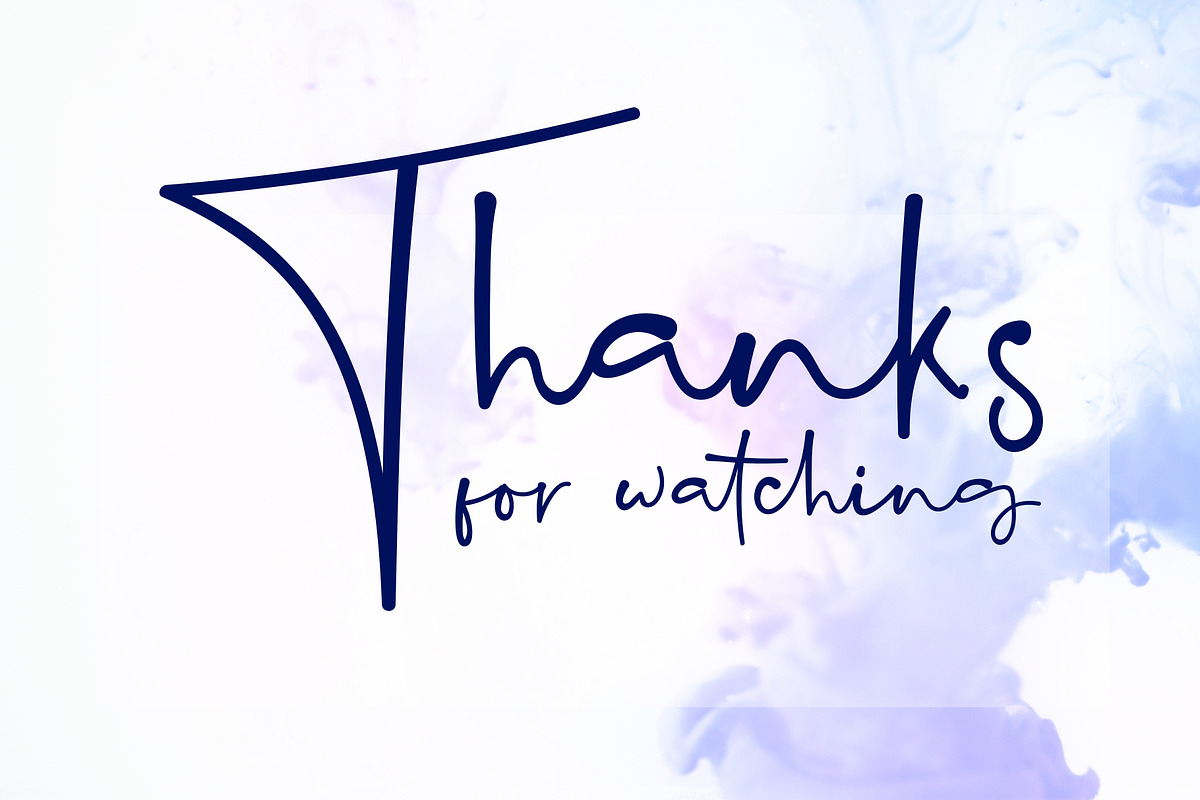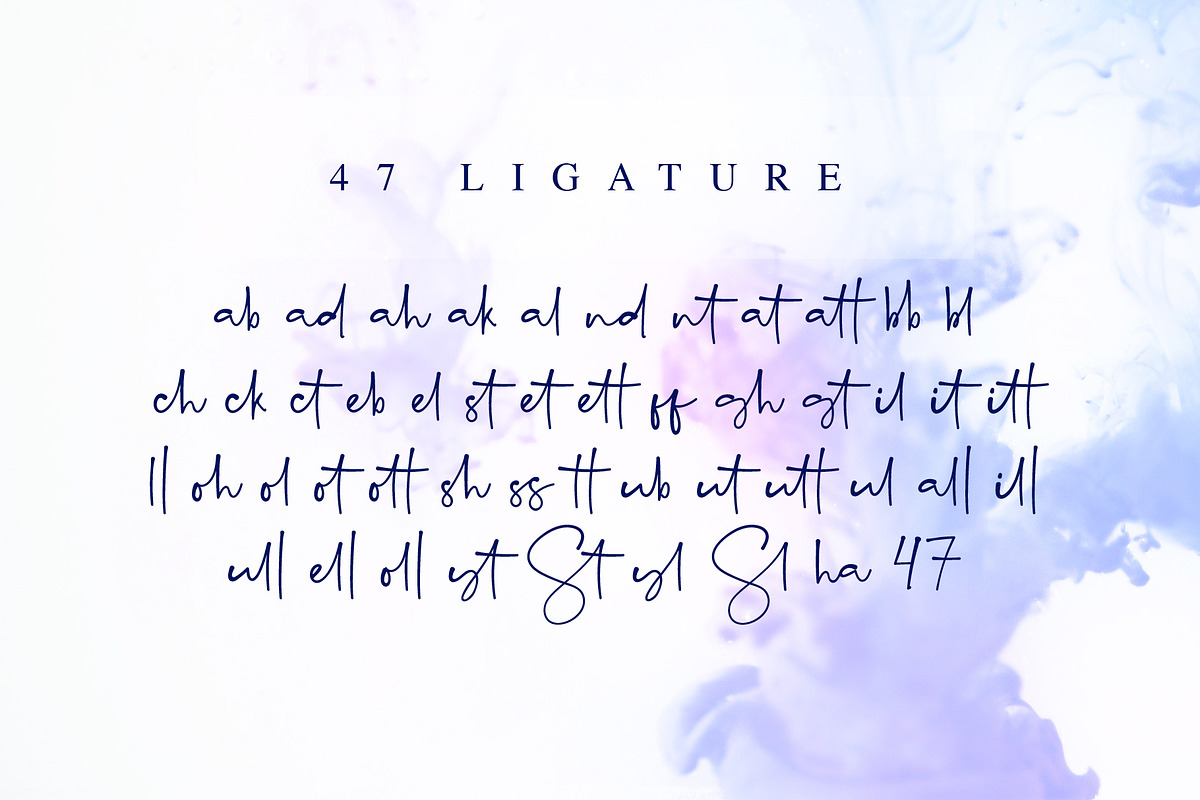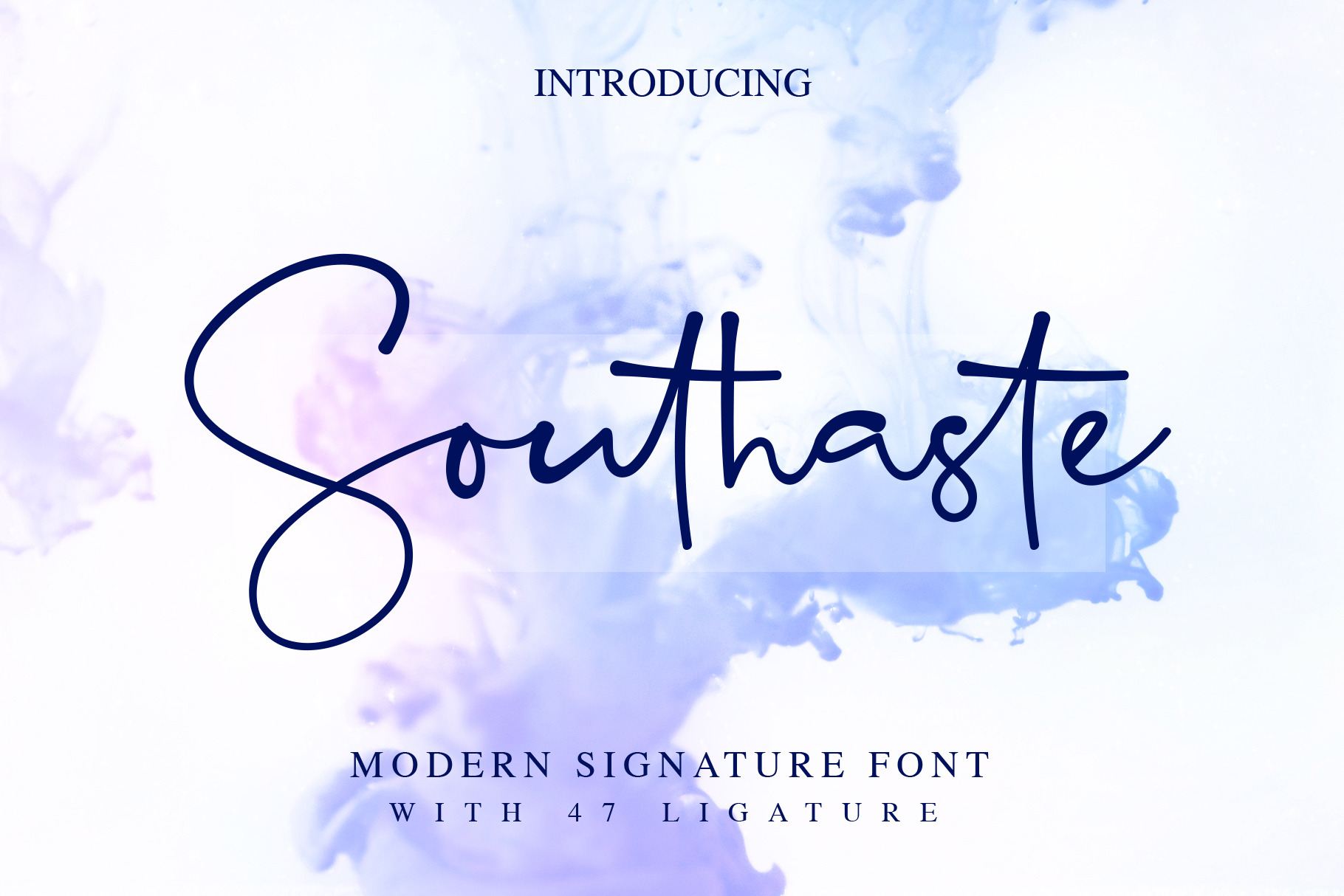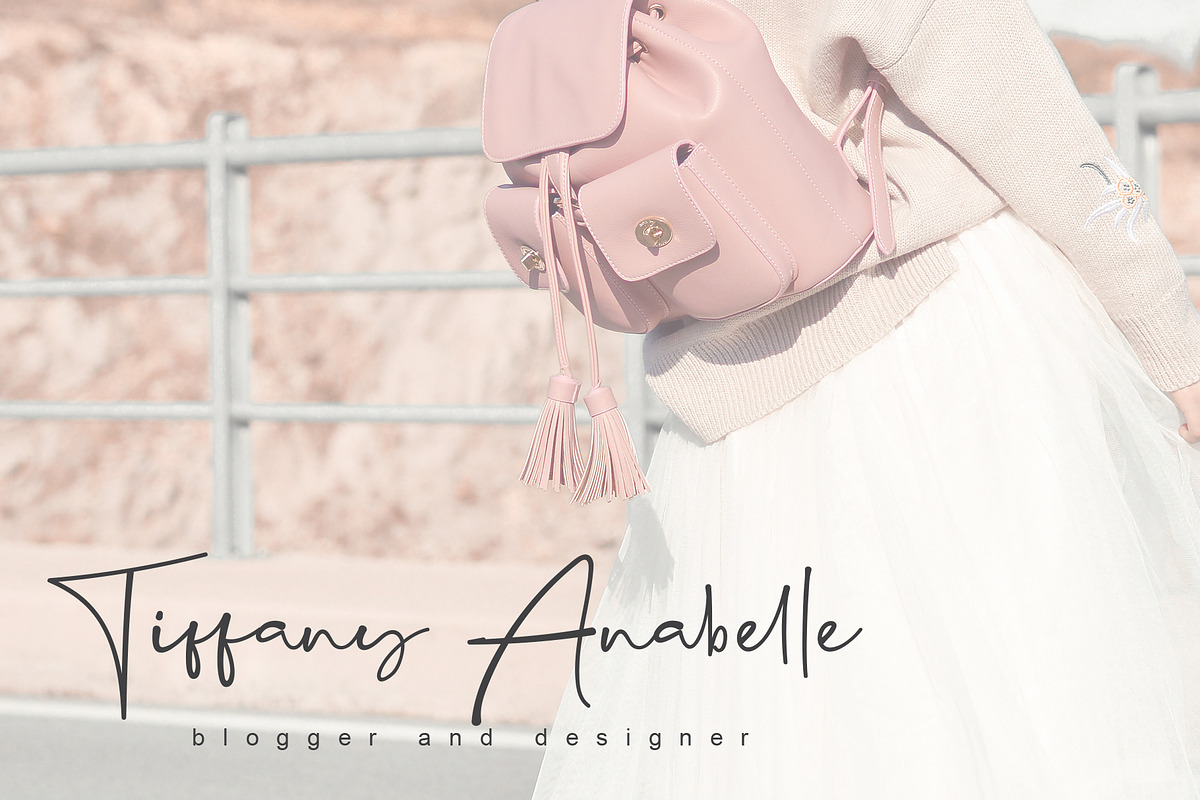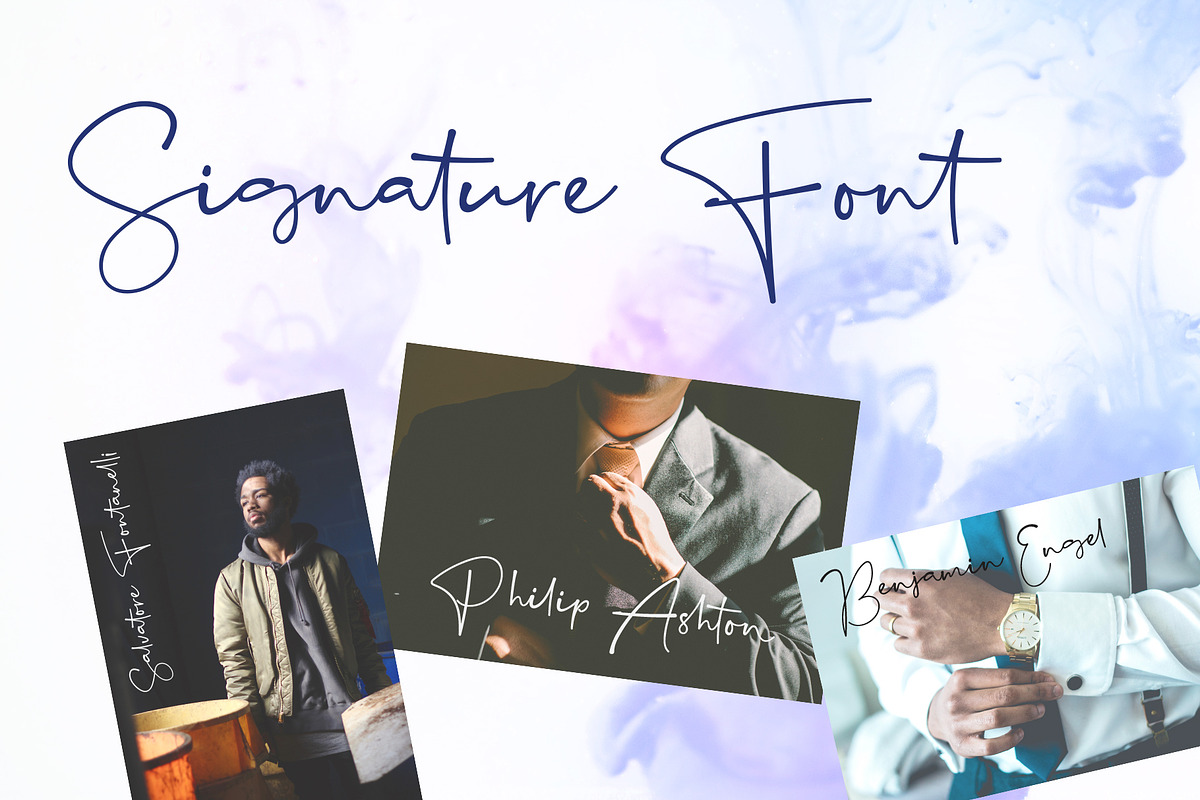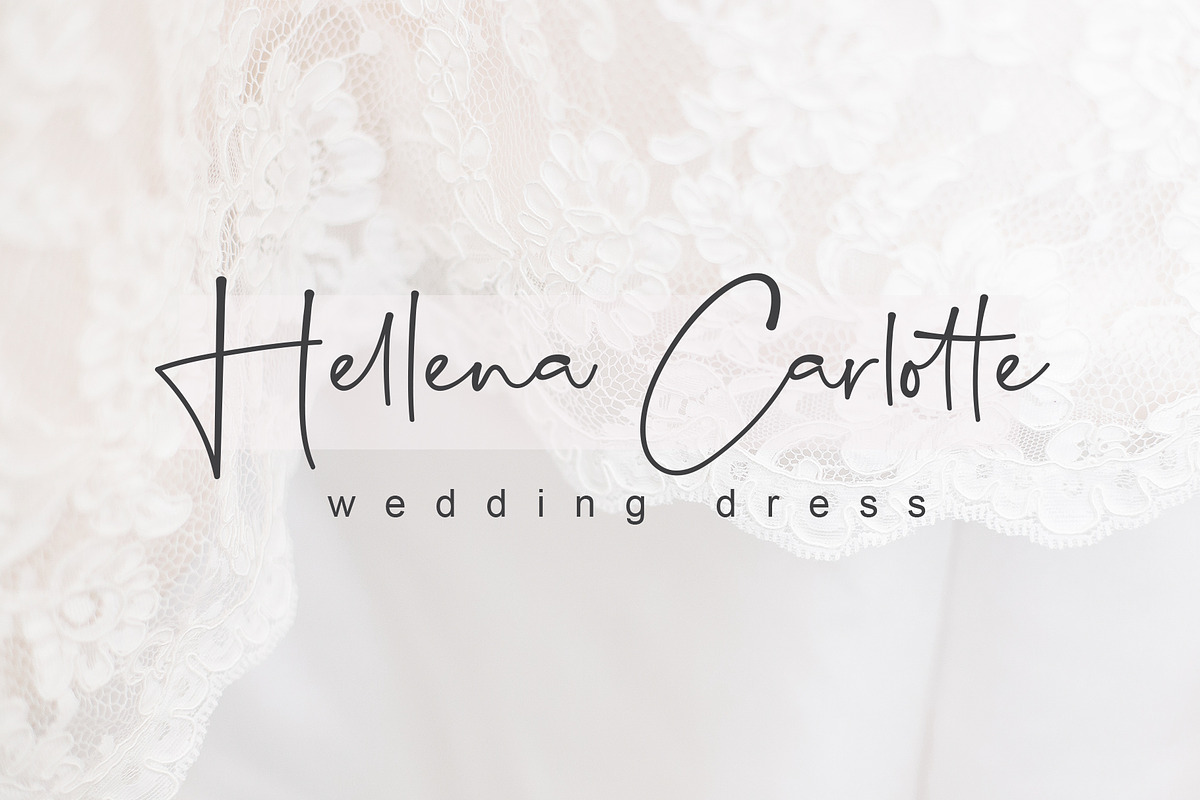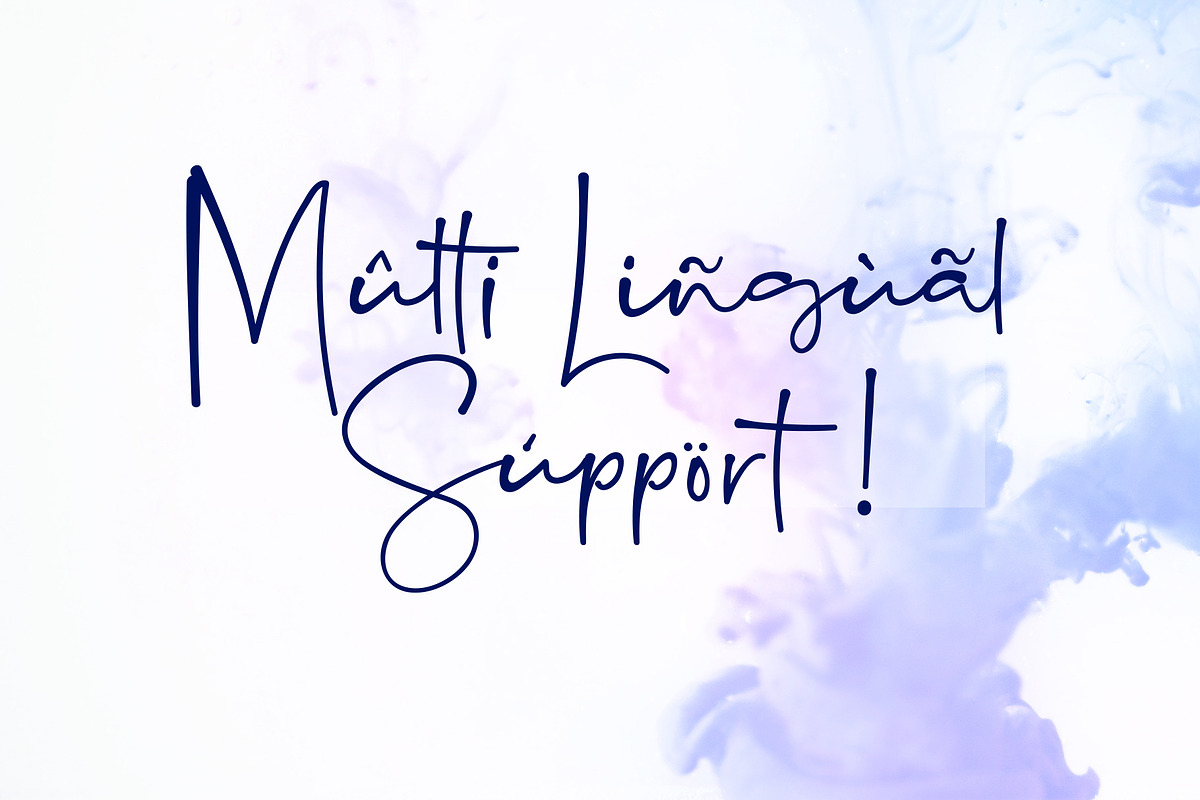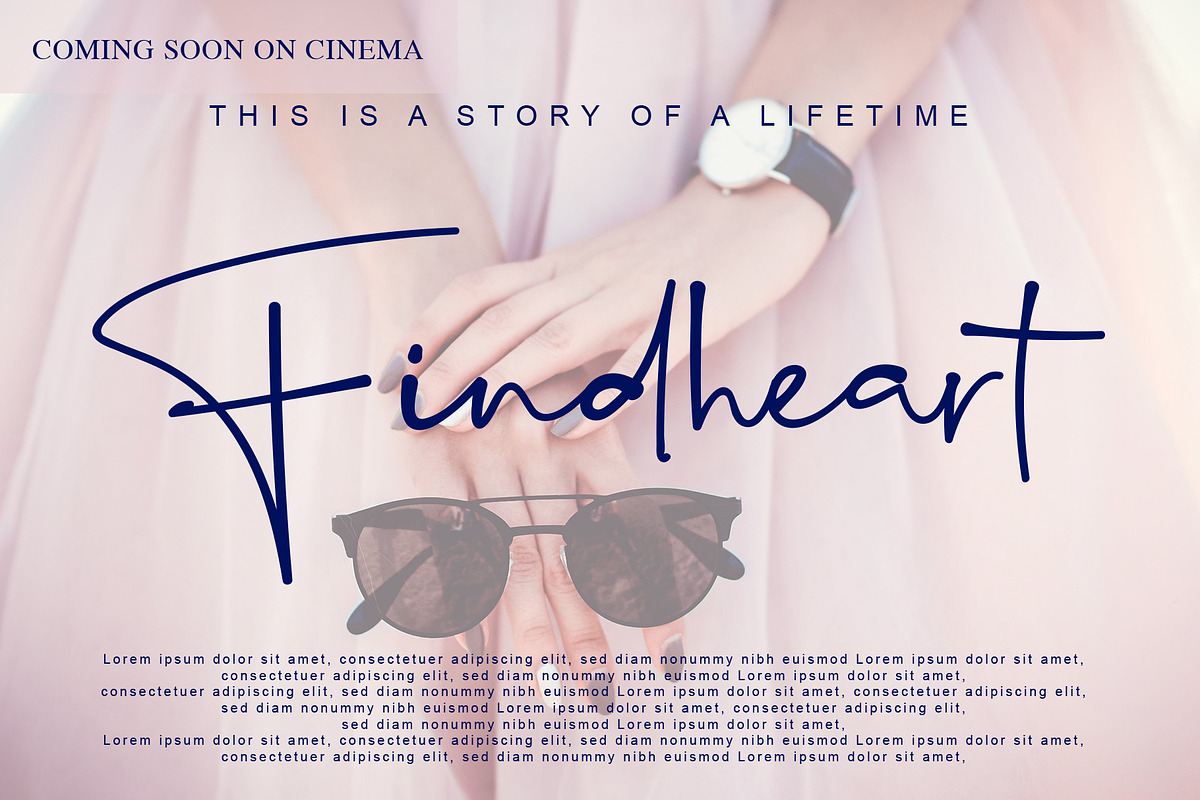
Southaste - a Signature Font
Southaste - a Signature Font is a handwritten script font with a simple and modern style, this font is great for your next creative projects such as watermark on photography, signature or signature logo design, quotes, album cover, business card, and many other design project. From business cards to photo watermarks, Southaste is here to elevate your work to the highest level.
Southaste comes with uppercase letters, lowercase alternative letters, numbers, punctuation, 47 ligature and multi lingual support